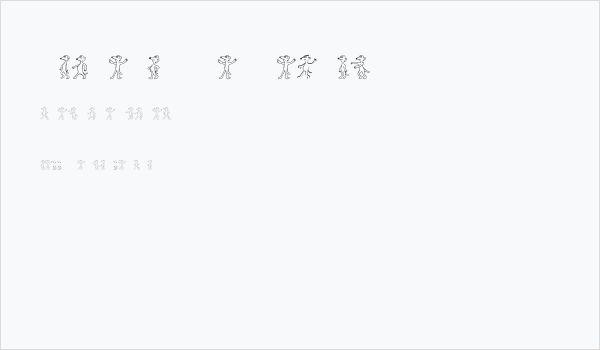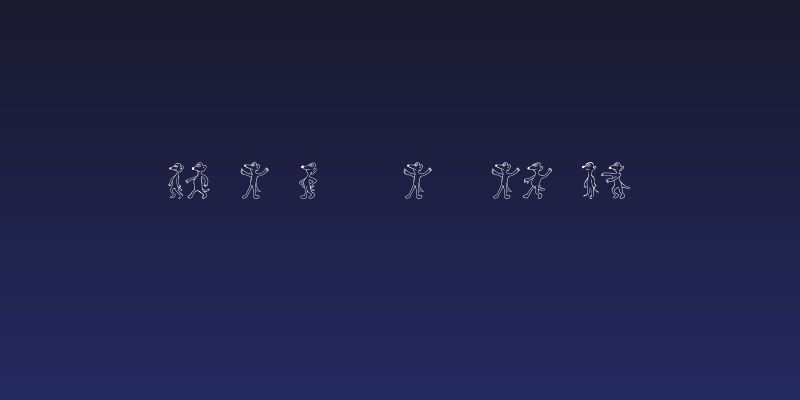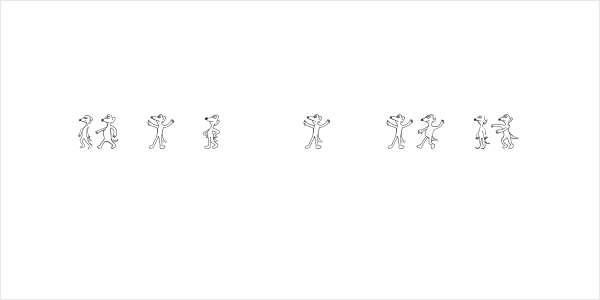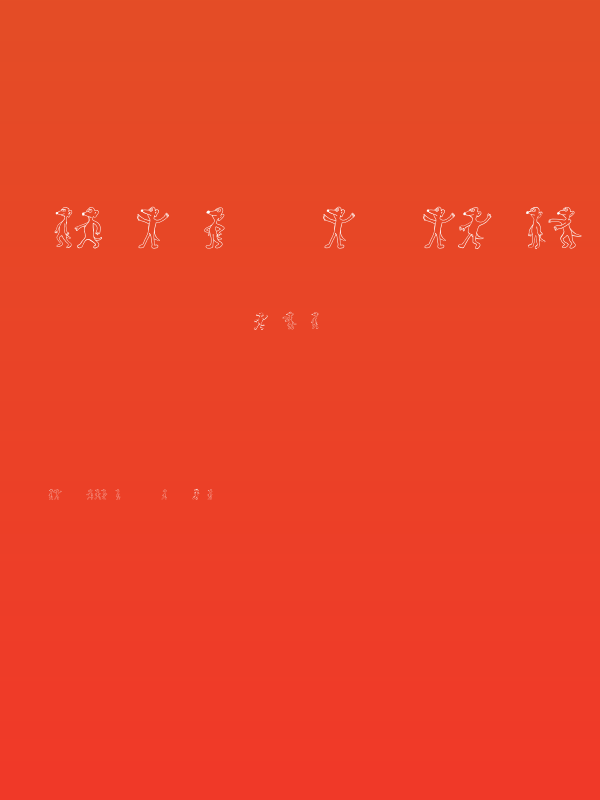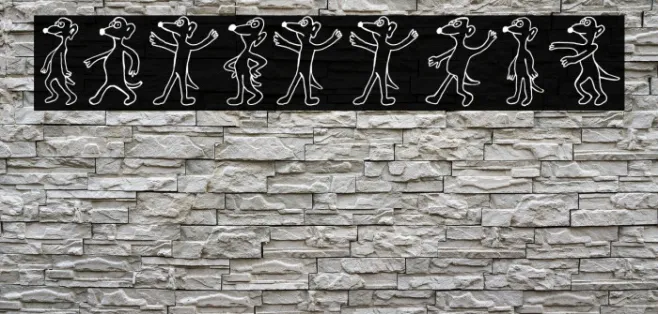
White Mouse Regular Font
White Mouse Regular Description
This font is a playful and whimsical design featuring cartoon-like characters that resemble mice in various poses. Each character is distinct, with exaggerated features and expressive postures, creating a lively and animated appearance. The design is highly decorative, making it suitable for creative and fun projects. The characters are outlined with a consistent stroke width, providing a cohesive look across the set. The overall style is unique and artistic, capturing a sense of movement and personality in each character.
| Use Case | Logos, Posters, Creative Projects |
| Proposed Projects | Ideal for children's books, playful branding, greeting cards, and creative posters. |